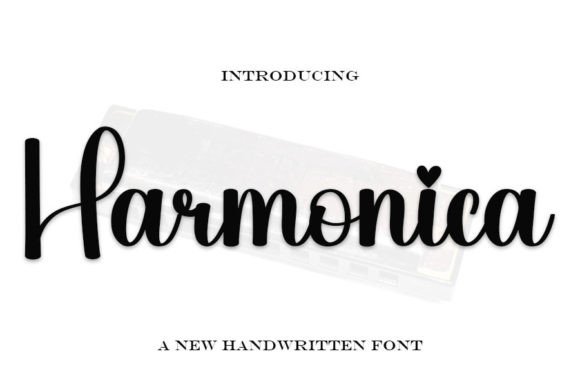
Harmonica Font
Step into a realm where elegance meets playfulness with the Harmonica Font, a script font that dances across your designs with unmatched grace. Crafted with love by putrasyahreza00, Harmonica embodies the magic of handwritten charm, transforming your creative visions into captivating realities.
Journey through a universe of possibilities with Harmonica, where every letter flows seamlessly into the next, creating an enchanting symphony of style. Its gentle curves and whimsical lines weave a tale of elegance, adding a touch of sophistication to your digital masterpieces.
Indulge in the limitless versatility of Harmonica, a font that adapts effortlessly to a myriad of projects. Whether you're crafting heartfelt invitations, designing stunning logos, or creating social media posts that pop, Harmonica's allure remains undeniable.
Experience the timeless allure of Harmonica, a font that transcends trends and fads, remaining an eternal classic. Its beauty is ageless, captivating audiences across generations, ensuring your designs stand the test of time.
Immerse yourself in the enchanting world of Harmonica, where creativity knows no bounds. Let its elegant strokes guide your imagination as you embark on a journey of self-expression, leaving an indelible mark on the hearts of your audience.
Unleash the storyteller within you with Harmonica, a font that breathes life into your words. Its delicate characters dance across the page, inviting readers to embark on a journey of emotions, immersing them in a world of pure enchantment.